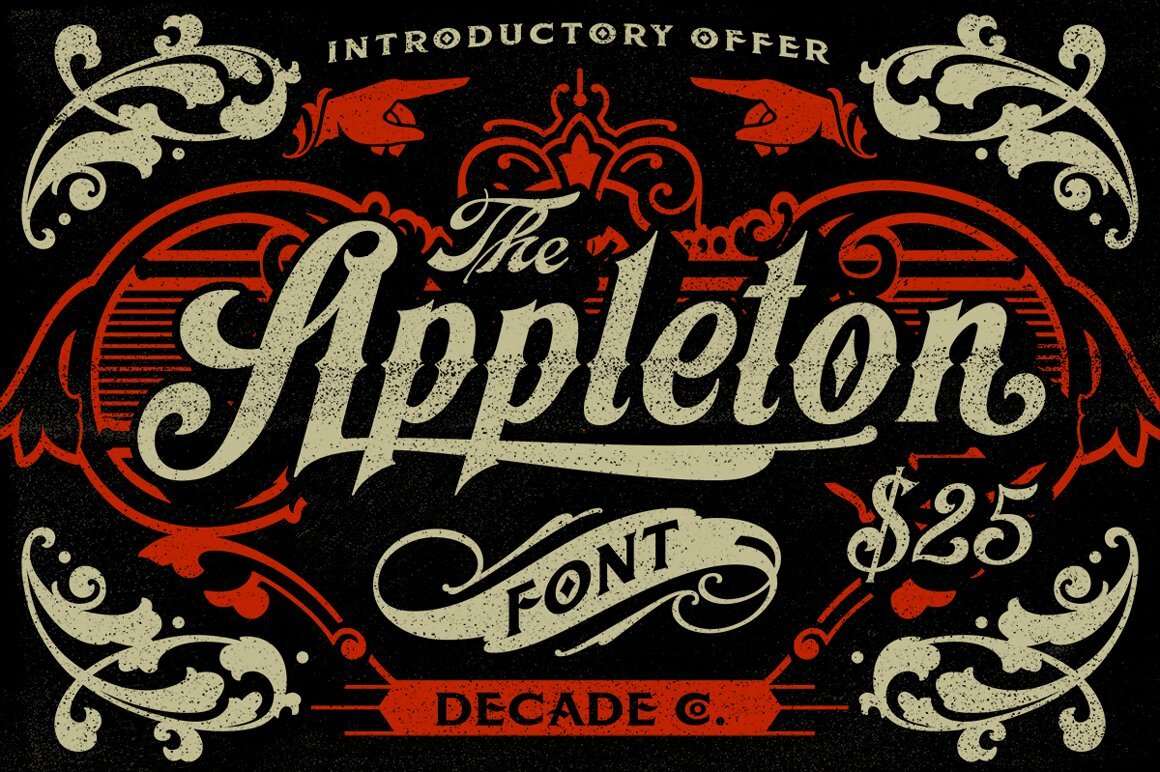
Appleton Free Font - Web appleton font free download. It has been downloaded 630 times. 2 users have given the font a rating of 3.0 out of 5. Web otf, ttf free for personal use appleton is a completely free font that you can use in your graphic designs. You can find more information about appleton regular and it's character map in. Full with alternative styles, swashes, ornaments, and multilingual. Web download appleton font. Web appleton regular is a regular truetype font. If you wish to use it in a. This font can download by clicking the given download now button.
2 users have given the font a rating of 3.0 out of 5. It has been downloaded 630 times. Web appleton font free download. You can find more information about appleton regular and it's character map in. Web appleton regular is a regular truetype font. Full with alternative styles, swashes, ornaments, and multilingual. For commercial projects, it requires permission from the author. If you wish to use it in a. Appleton font by decade typefoundry is a decorative italic script with roots in the 19th century america. This font can download by clicking the given download now button.
Web appleton regular is a regular truetype font. This is a free version of this typeface and you can use it in your personal project free of cost. It has been downloaded 630 times. If you wish to use it in a. Appleton font by decade typefoundry is a decorative italic script with roots in the 19th century america.
Web download appleton font. If you wish to use it in a. You can find more information about appleton regular and it's character map in. Web appleton regular is a regular truetype font. Appleton font by decade typefoundry is a decorative italic script with roots in the 19th century america.
Appleton font by decade typefoundry is a decorative italic script with roots in the 19th century america. You can find more information about appleton regular and it's character map in. Web appleton font free download. Web appleton regular is a regular truetype font. If you wish to use it in a.
You can find more information about appleton regular and it's character map in. Appleton font by decade typefoundry is a decorative italic script with roots in the 19th century america. Web appleton font free download. Web otf, ttf free for personal use appleton is a completely free font that you can use in your graphic designs. This is a free.
Appleton font by decade typefoundry is a decorative italic script with roots in the 19th century america. Web download appleton font. You can find more information about appleton regular and it's character map in. Web appleton font free download. Web otf, ttf free for personal use appleton is a completely free font that you can use in your graphic designs.
If you wish to use it in a. This font can download by clicking the given download now button. 2 users have given the font a rating of 3.0 out of 5. Appleton font by decade typefoundry is a decorative italic script with roots in the 19th century america. You can find more information about appleton regular and it's character.